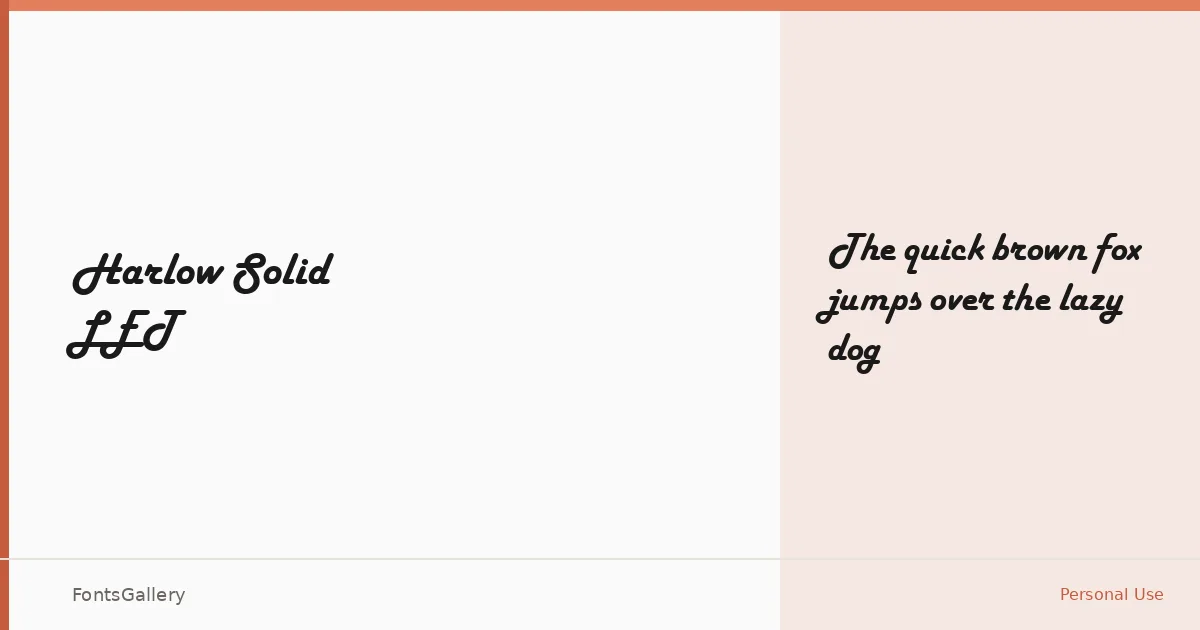
About Harlow Solid LET Font
There is something immediately recognizable about this script — a confident, brushed energy that reads as both classic and a little theatrical. Rooted in Letraset's dry-transfer lettering heritage, with a copyright dating to 1990, it carries the weight of that era's graphic craft traditions. The letterforms are solid and opaque, with no inline or shadow trickery: what you see is a clean, filled stroke that holds up at display sizes.
This is a bold script with a vintage personality — playful enough for casual use, structured enough to feel purposeful. The family comes as a single cut, Thin Plain, delivered as a TTF file with Latin coverage. Despite the "Thin" label in the style name, the strokes read as display-weight in practice, making the face well-suited to headlines and identity work where you want script character without decorative fragility. The mood sits somewhere between a jazz-club marquee and a mid-century goods label.
Branding, poster work, logo lockups, T-shirt graphics, and social media headers are the natural homes for this face — anywhere a touch of retro warmth and hand-lettered confidence earns its place. Against the neutral precision of Helvetica or Asap, the script contrast is immediate and effective. Paired with the editorial softness of Canela or ABC Arizona, it takes on a more refined, magazine-adjacent character, while Adobe Caslon Pro brings a classical serif gravity that steadies the playfulness nicely.